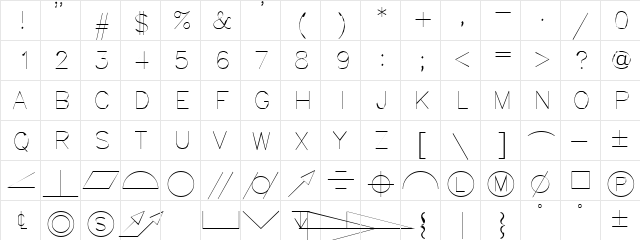
GDT Regular
Design Context for GDT Typeface
GDT is a composed and adaptable typeface that performs quietly and consistently across a wide range of design contexts.